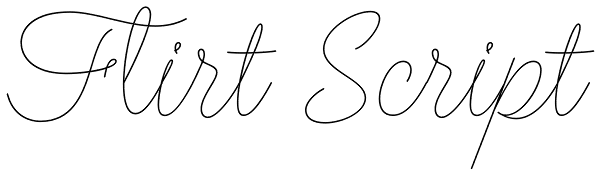
Flirt Script
Young, playful, loopy, flirty. Flirt Script® carves out a niche for itself by concentrating on natural writing tendencies and not the simplified mechanics of script-to-font type design. A free-flowing monoline, the two weight typeface exploits the...